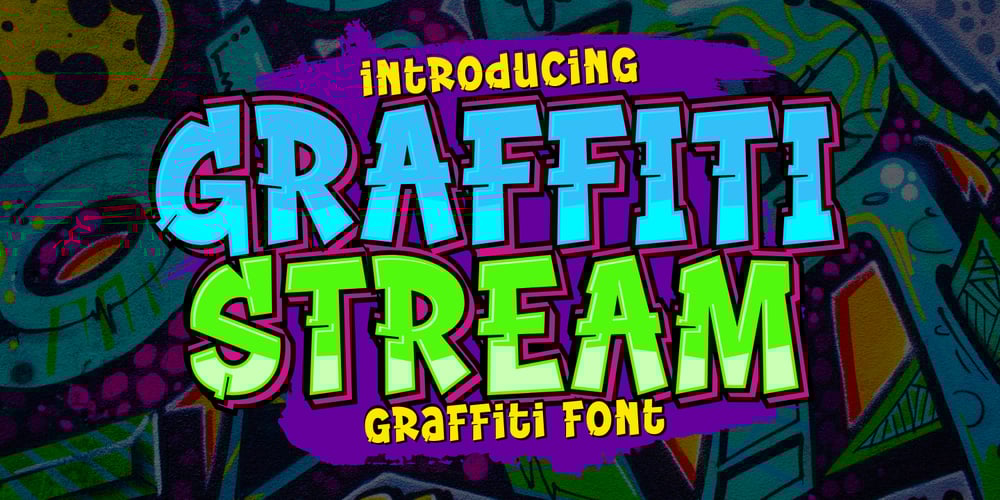
Graffiti Stream
Graffiti Stream font
Graffiti Stream Font Family was designed by Muhamad Yusron Billah and published by Sronstudio. Graffiti Stream contains 4 styles and family package options. Graffiti Stream is a bold and edgy graffiti font that captures the essence of urban art. Perfect for street-style designs, posters, logos, and creative projects, it adds a vibrant and rebellious touch to your work. Unleash your creativity with Graffiti Stream!Included:- 4 Style : Regular, Shadow, Extrude & Highlight- Numeral & Punctuation- PUA Encoded- Multilingual support- Simple Installation- Work both on Mac and WindowsThank you very much 🙂